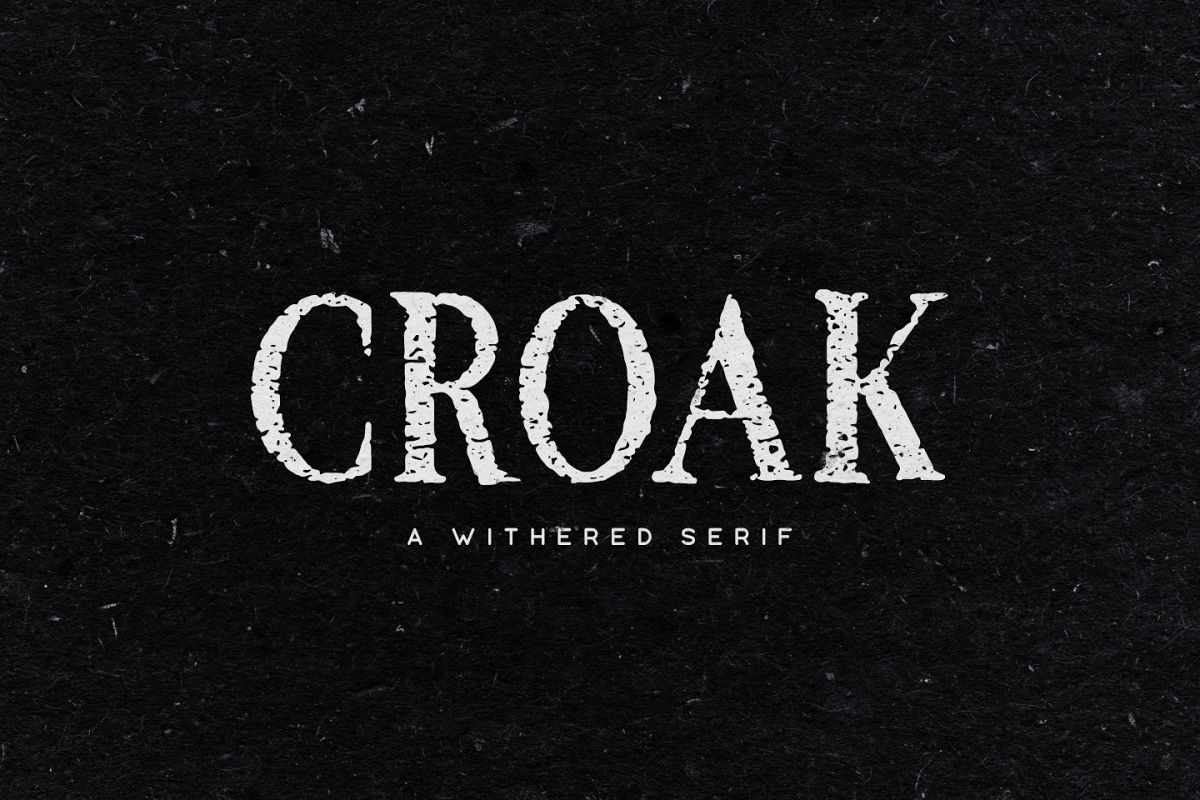
Croak Typeface
Croak Withered
Croak Extra Withered
Croak is a rough serif display font familty. It includes multilingual uppercase letters, numbers and punctuation. Croak comes in 2 withered styles, the second one being rougher than the first.